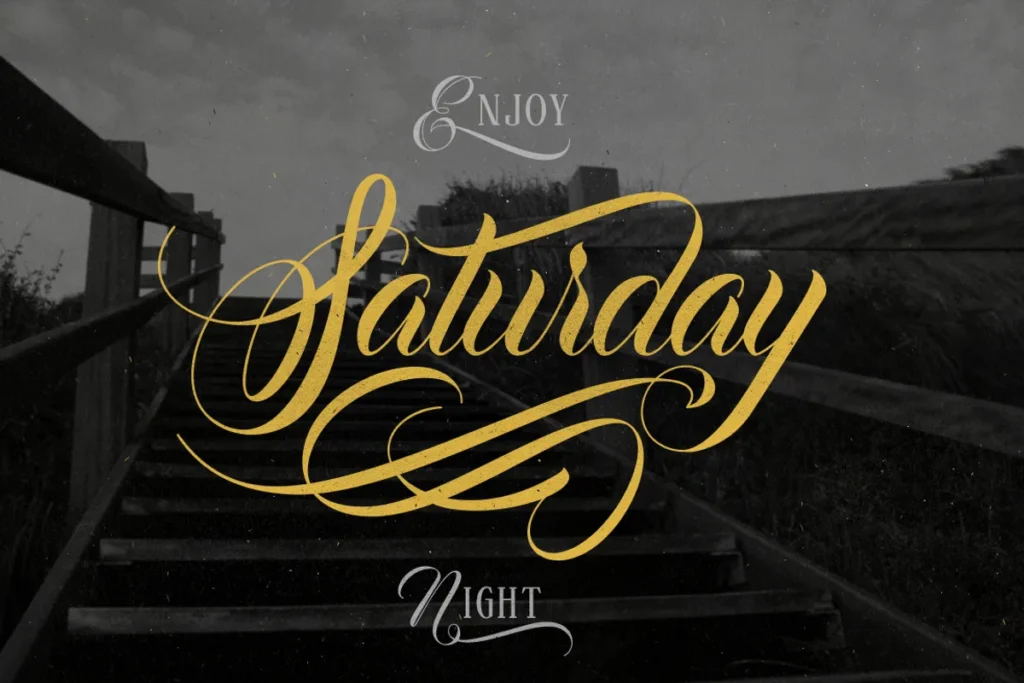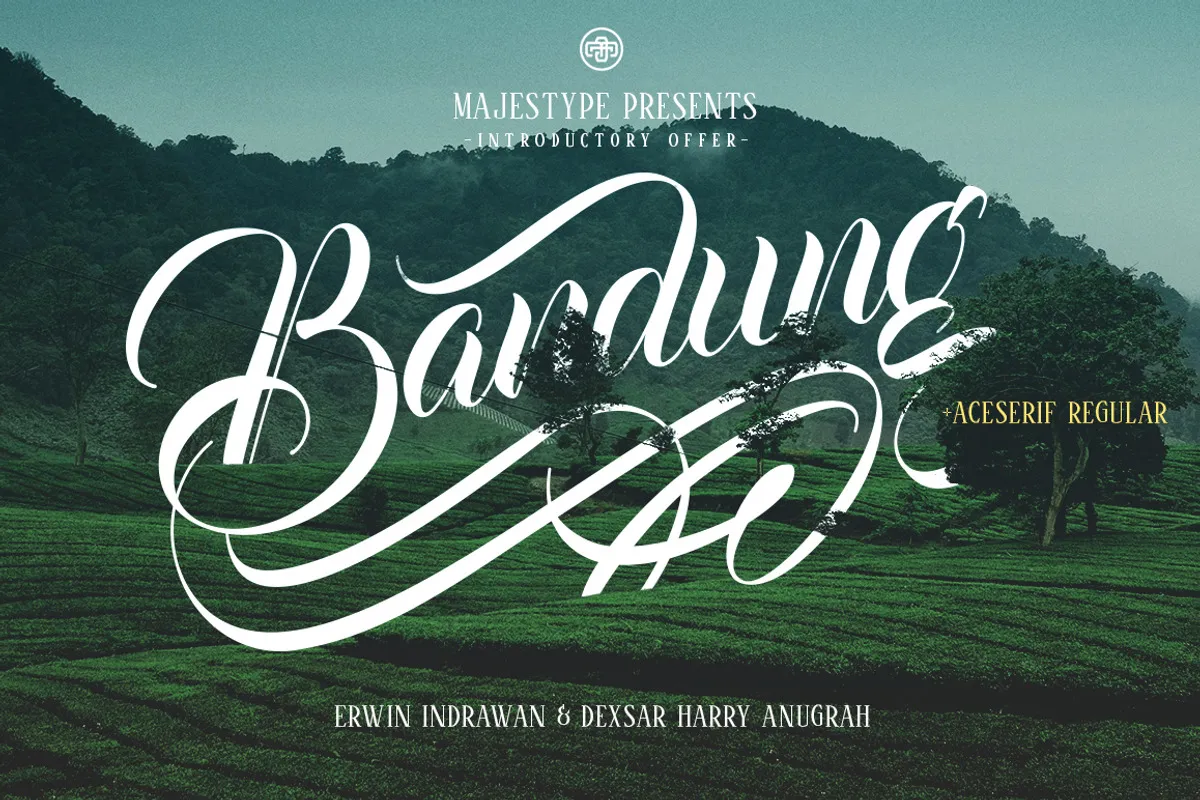
Free Bandung Aceserif Script Fonts
Bandung Aceserif Script Fonts from Majestype was made to catch the normal development of a brush script imbued with the class of copperplate hand.
With a half year really taking shape, we need to ensure that the person set interfaces each other as regular and consistent as a penmanship would be.
We give you an immense measures of glyph options(400+) and will get update intermittently, added with bunches of swashes and twists to provide you with a legitimate look of a hand made brush letters.
Bandung Aceserif Script Fonts text style is likewise looks extremely decent when joined with textual style “Aceserif” that we make as a little something extra assuming you purchase right now.